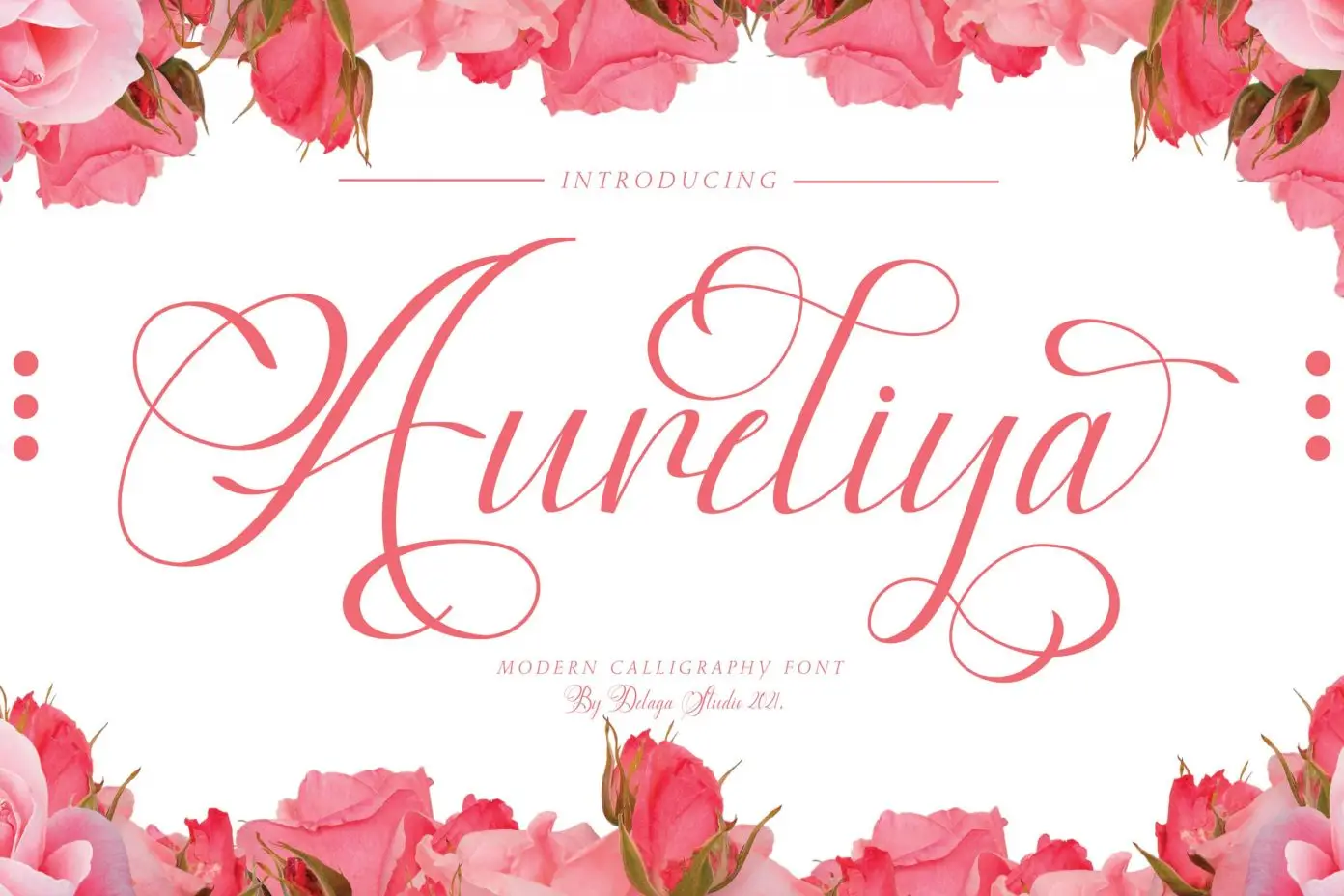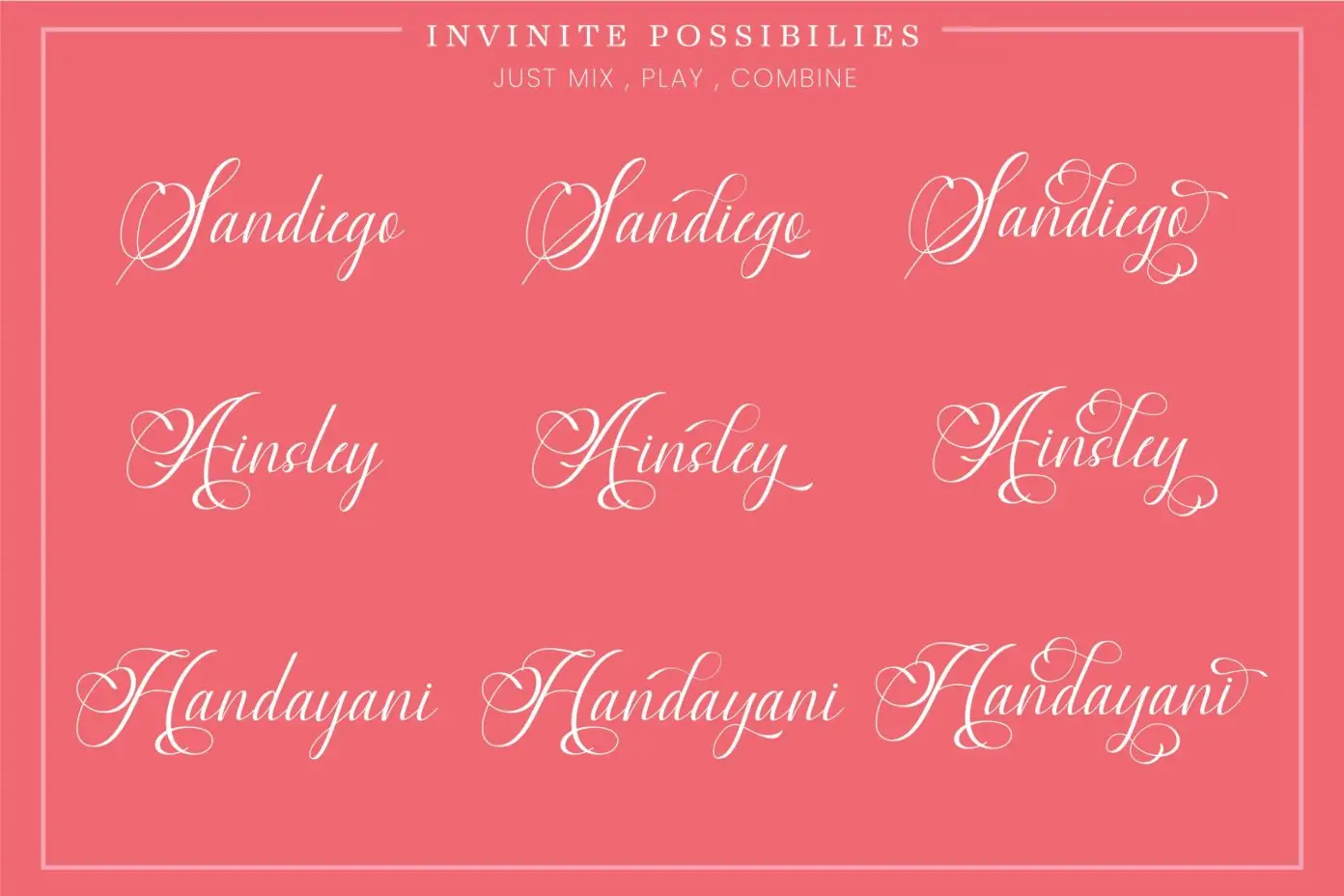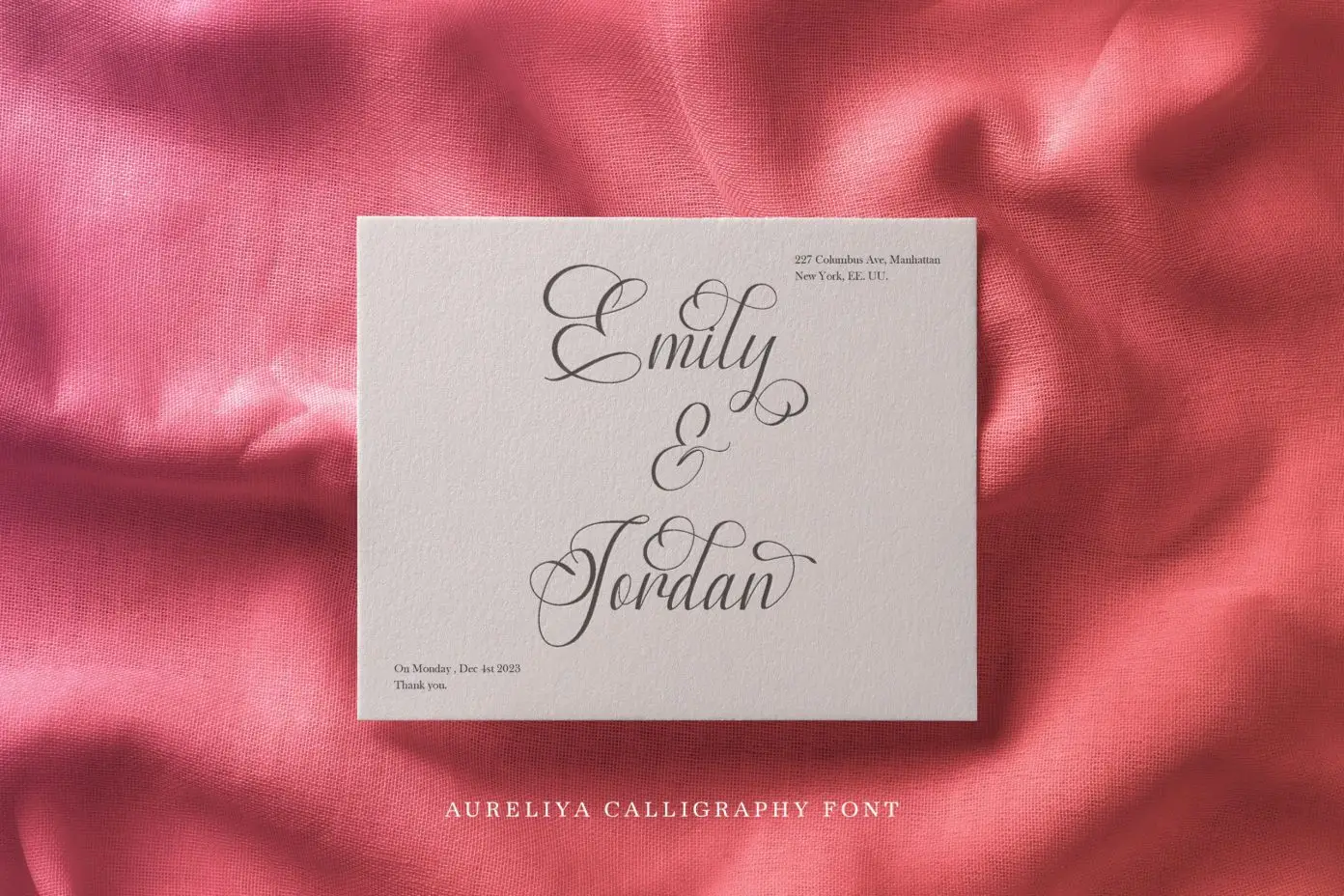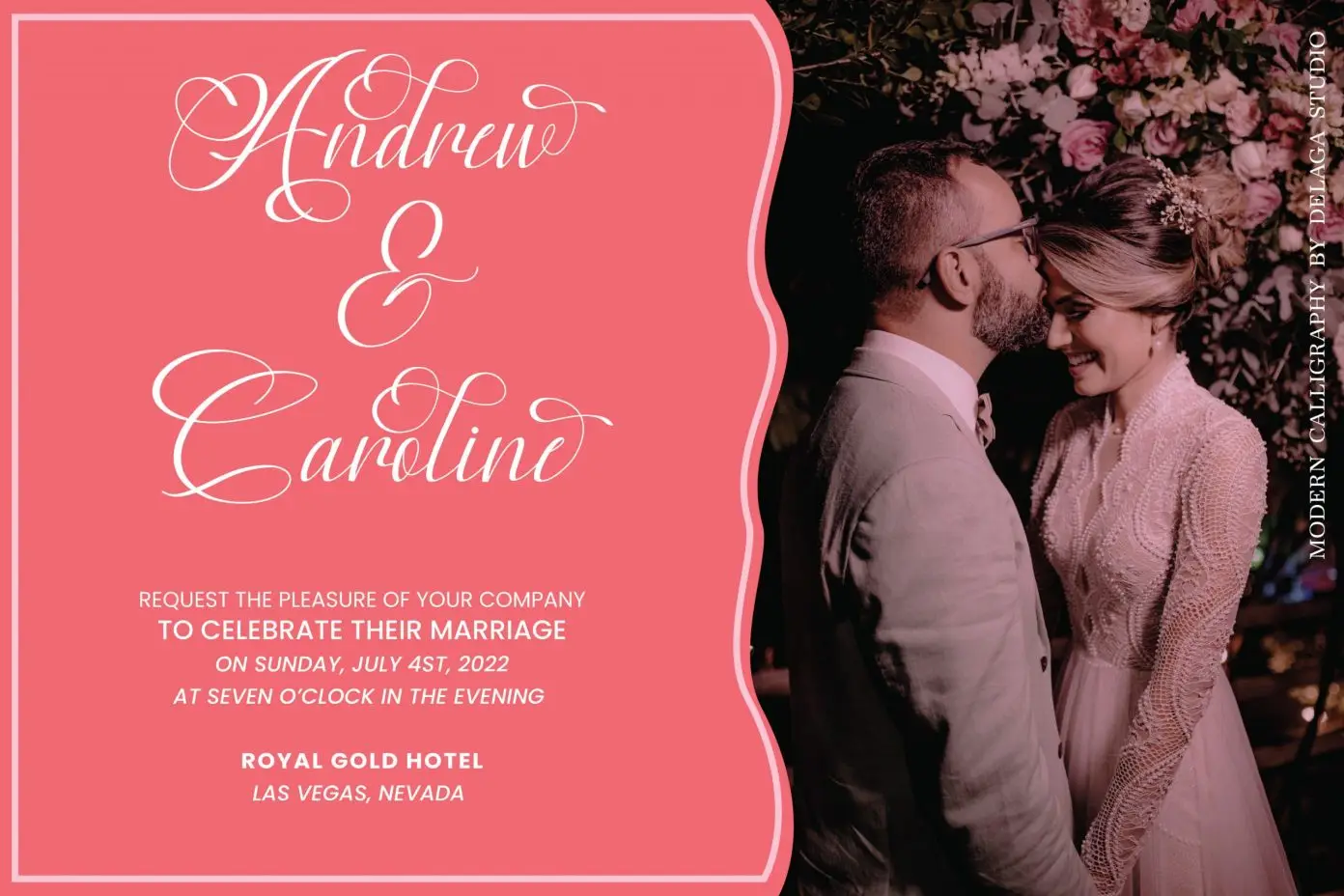
Aureliya Calligraphy Font
The Aureliya Calligraphy Font is a beautifully crafted typeface that embodies elegance and sophistication. Perfect for a variety of applications, this font is ideal for branding, logos, invitations, and other print materials that require a touch of class.
• Stylish calligraphy design
• Styles: Calligraphy